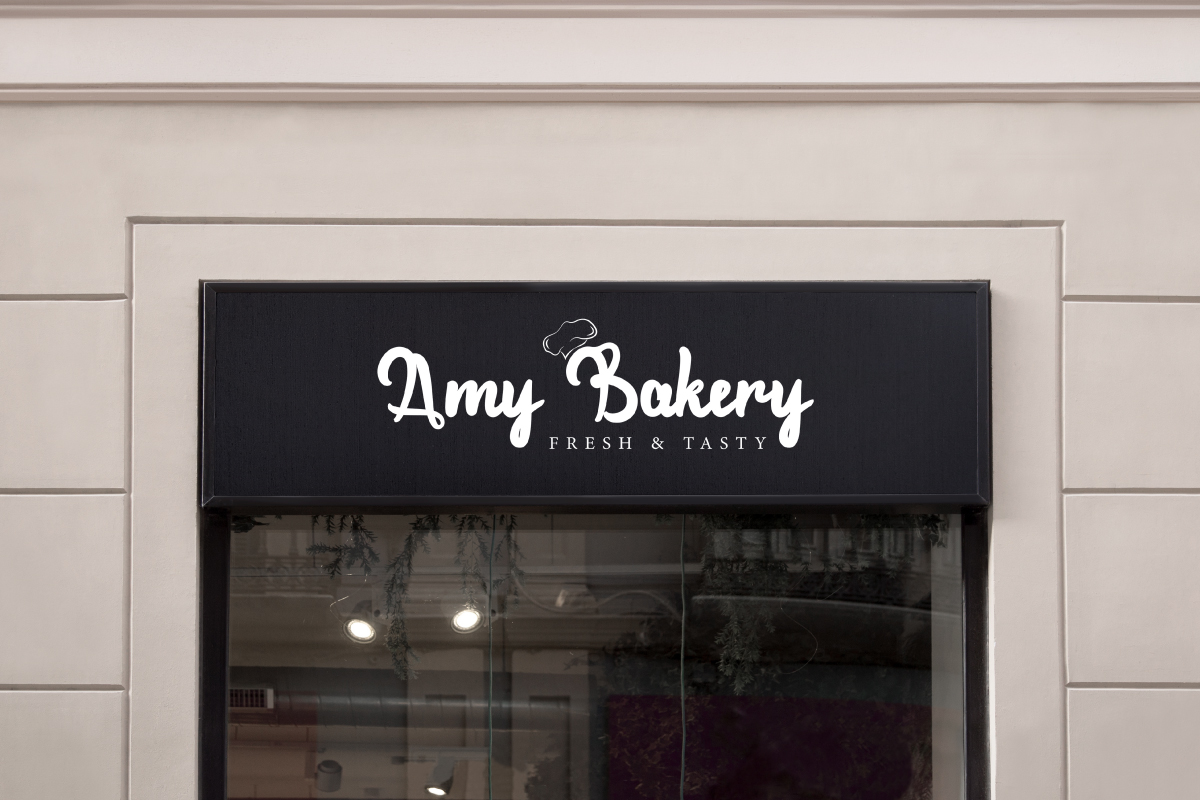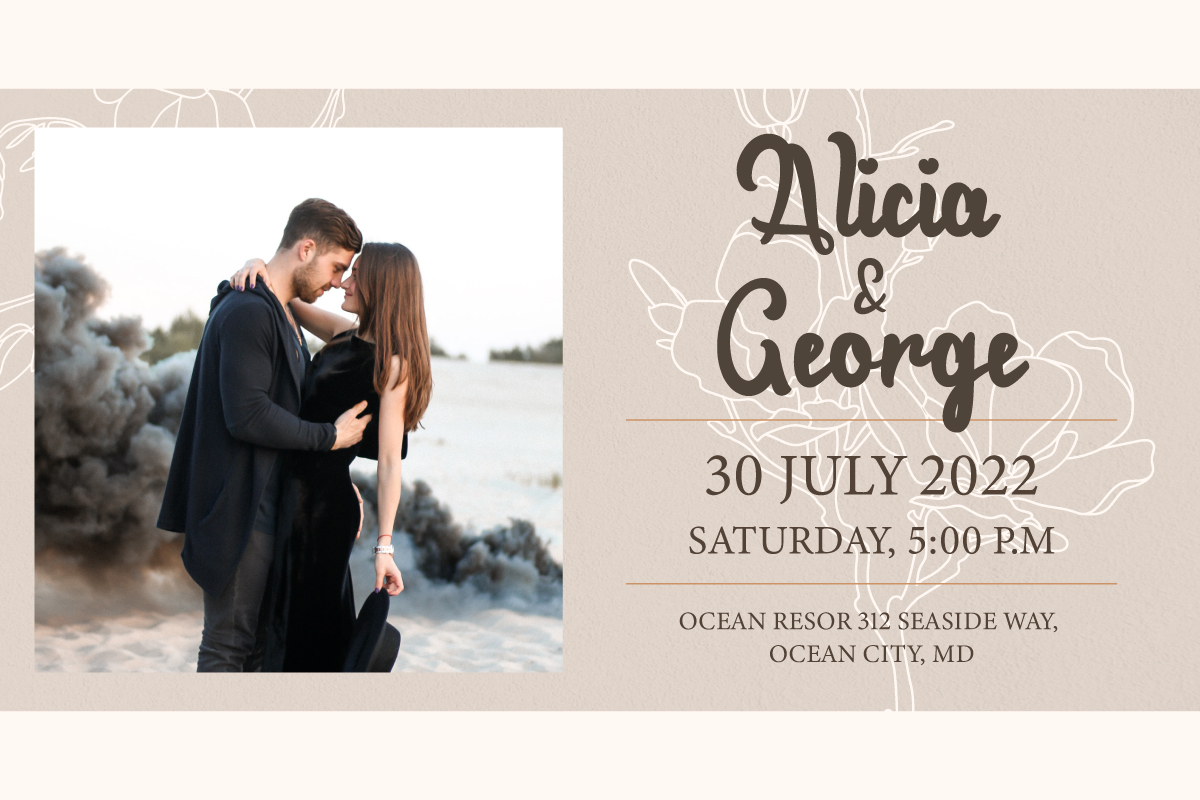
Every Week Font
Every Week Script Font
It’s an elegant calligraphy created by NihStudio. This font uses a thick brush which is irregular but makes it stand out, will be good for your business brand, covering industry : bakery, boutique, cosmetic, event planner, fashion, florist, spa, etc.